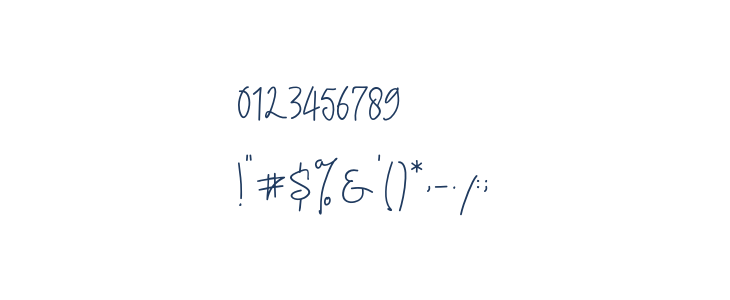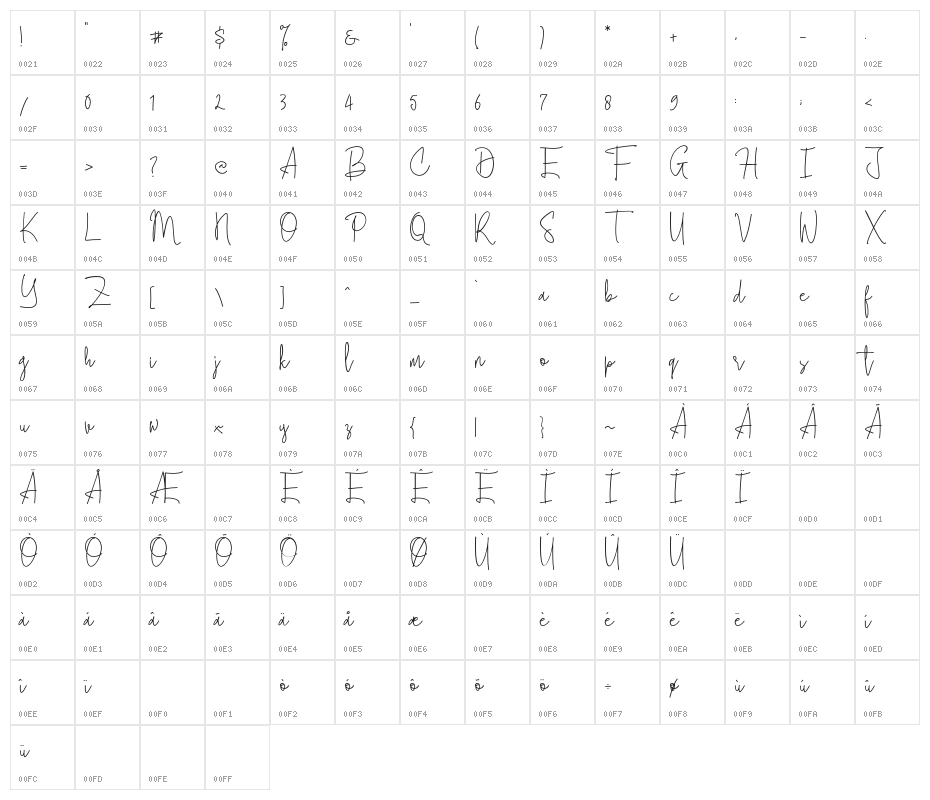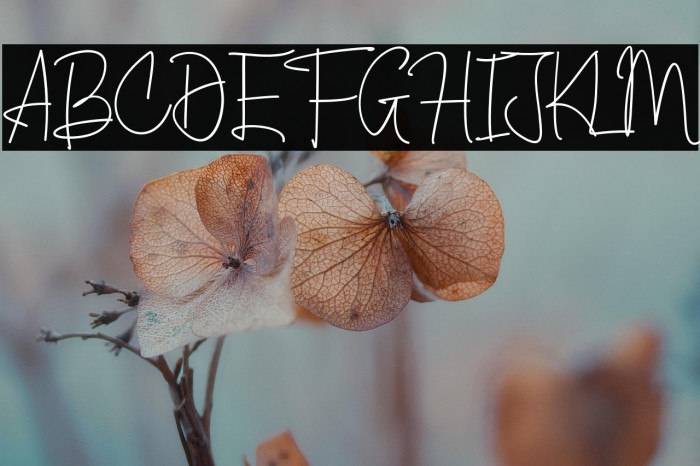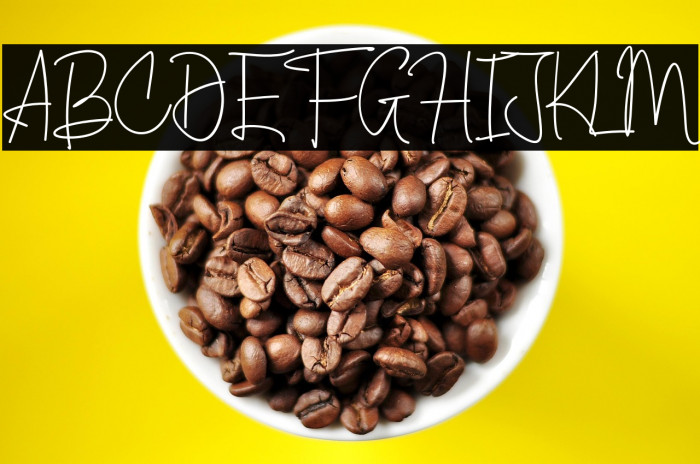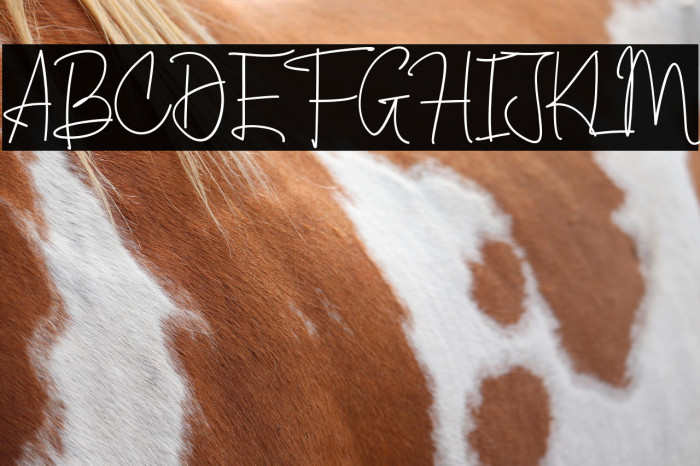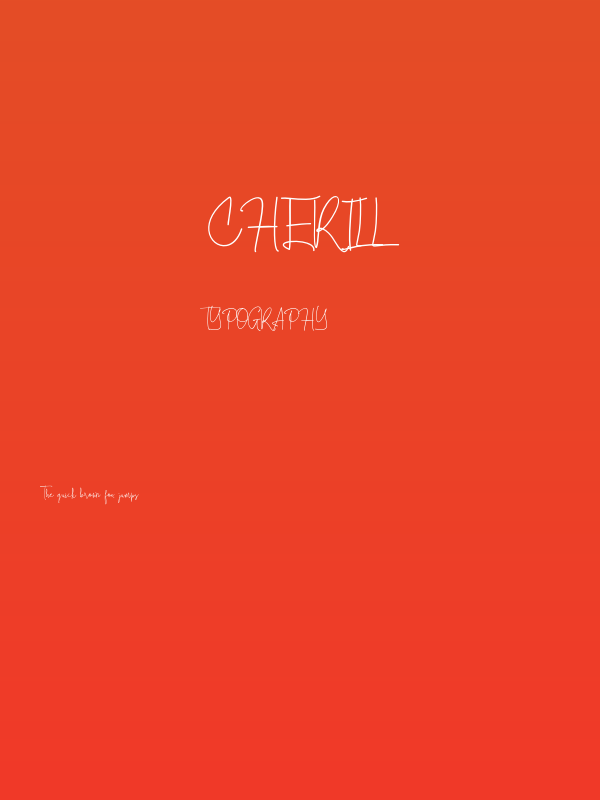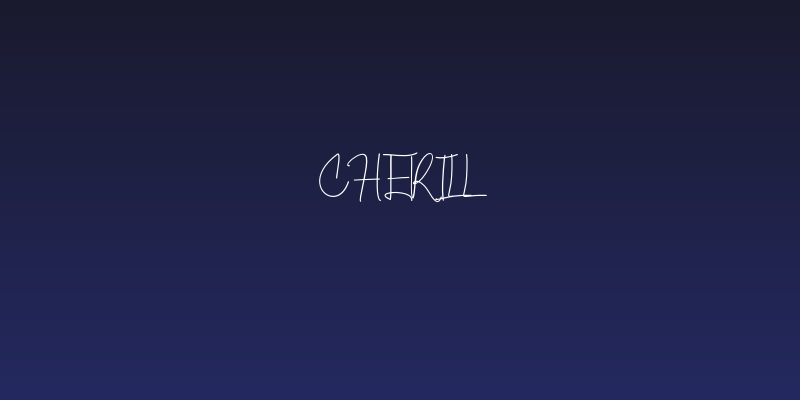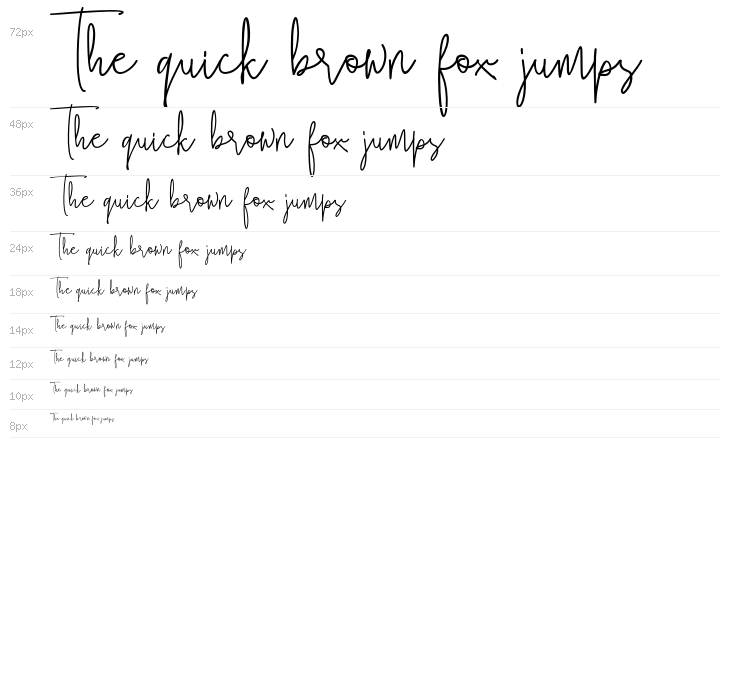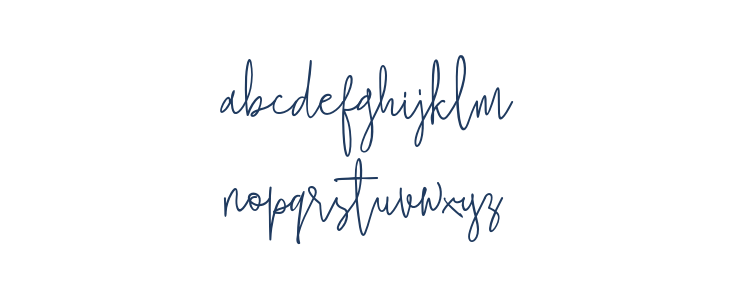
Cherill Font
Cherill Description
This font features a playful and whimsical handwritten style, characterized by its flowing and interconnected strokes. The uppercase letters are tall and slender, with a slight slant that adds a dynamic feel. The lowercase letters maintain a consistent flow, enhancing the casual and approachable nature of the design. Numbers and special characters follow the same fluid style, ensuring a cohesive look across all text. The overall appearance is both elegant and informal, making it suitable for creative and personal projects.